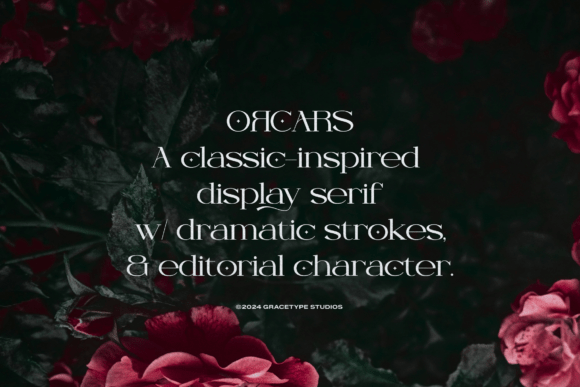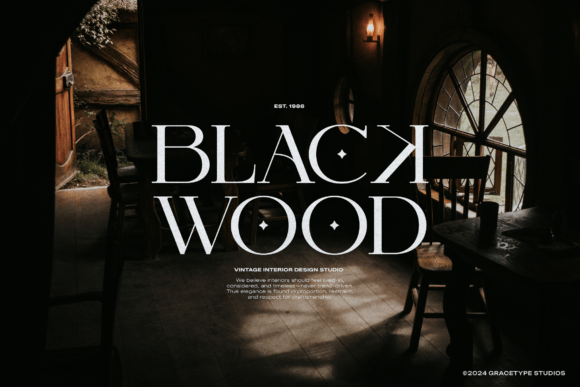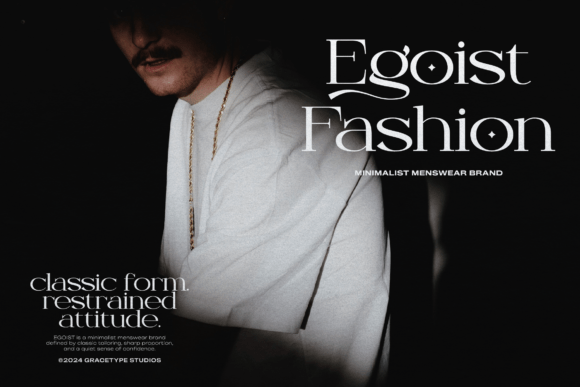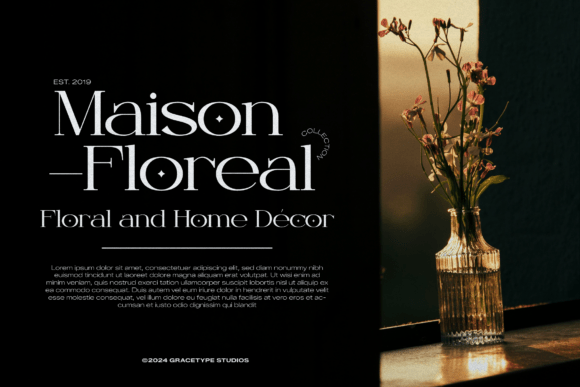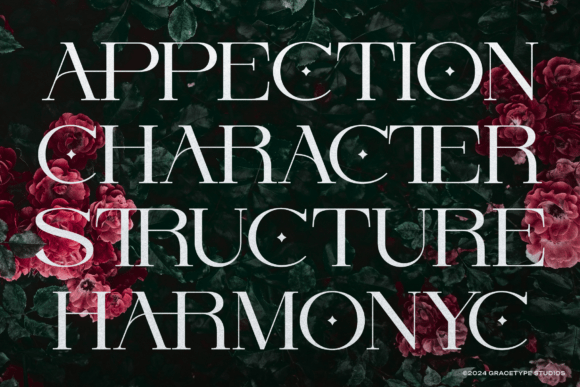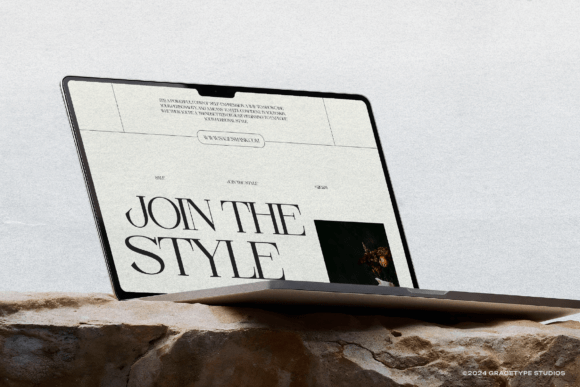
Introduction to Orcars Font
As designers, we’ve all had that moment when we stumble upon the perfect font for our creative project. The stars align, the colors pop, and the typography comes together in a way that elevates our work to the next level. For those seeking a luxury aesthetic that’s out of this world, look no further than the Orcars Font. This stunning serif font is a game-changer for designers looking to add a touch of high-end sophistication to their designs.
With its unique, star-like diamond counters and high-contrast strokes, the Orcars Font is the perfect addition to any design resource. Whether you’re working on a premium branding project, editorial layout, or perfume packaging, this font is sure to make your work stand out.
- Features a unique, modern font style with clean lines and geometric shapes, ideal for use in branding, logos, and graphics.
Honest Review: Orcars Font
As a designer, I’m always on the lookout for high-quality design resources that can elevate my creative projects. The Orcars Font is a great addition to any designer’s toolkit.
- ✨ Unique Style – The Orcars Font has a distinctive, modern aesthetic that sets it apart from more generic font options.
- ⚠️ Limited Character Set – The Orcars Font has a relatively limited character set, which may not be suitable for complex design projects.
- ⚠️ No Customization Options – The font is a fixed design, which may limit its versatility in certain design contexts.
Overall, the Orcars Font is a solid choice for designers looking for a unique and high-quality font for their creative projects. While it may not be suitable for every project, its distinctive style and free download make it a great resource to have in your toolkit.
Tips for Getting the Most Out of Orcars Font
To get the most out of Orcars Font, use it in combination with other design elements, such as images and shapes. Experiment with different font sizes and colors to create visually appealing designs. Orcars Font’s transparent background feature makes it perfect for creating graphics and designs with a transparent background.
Common Use Cases for Orcars Font